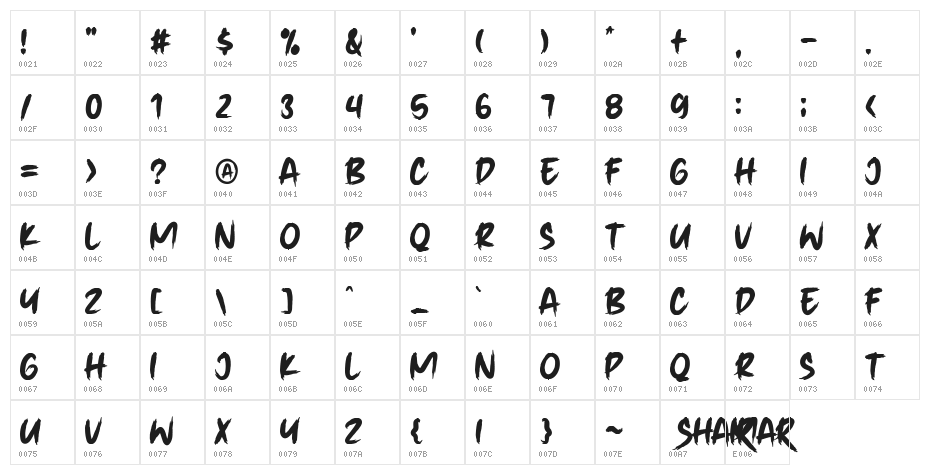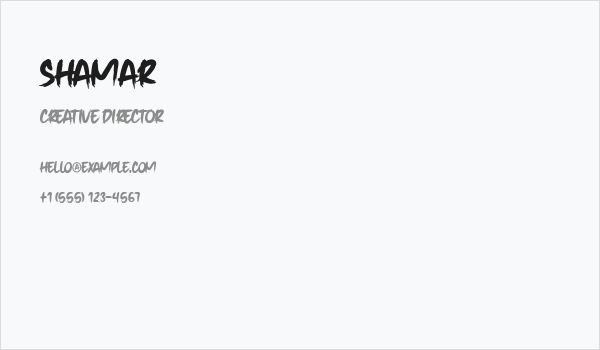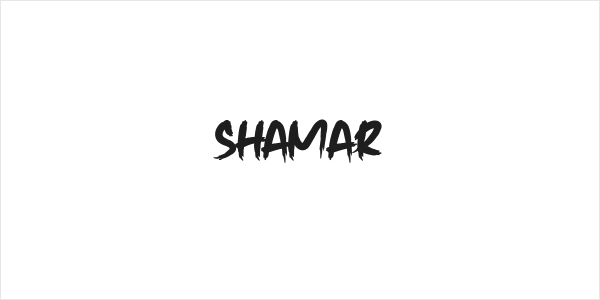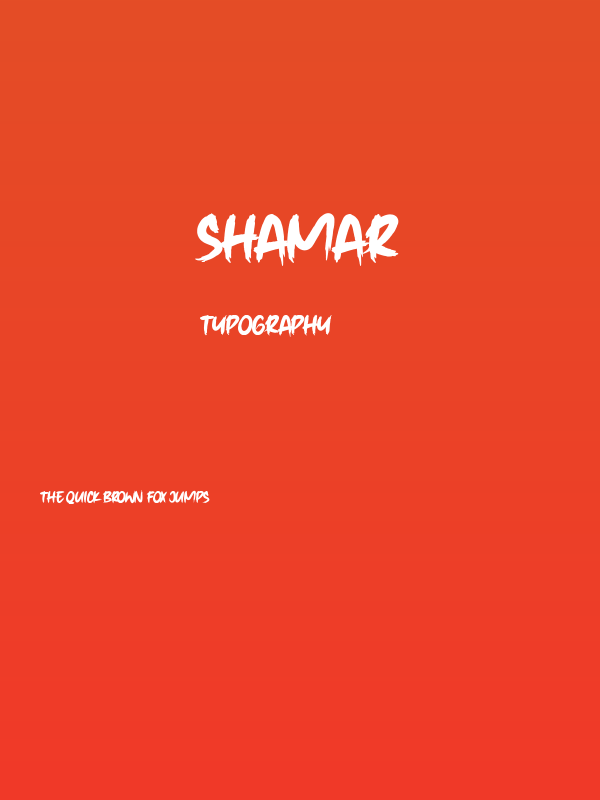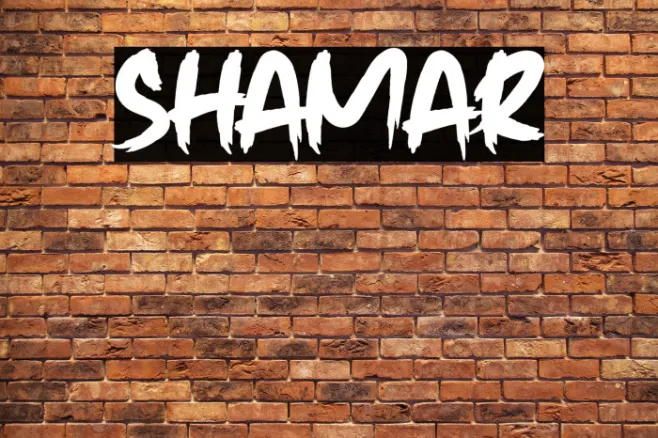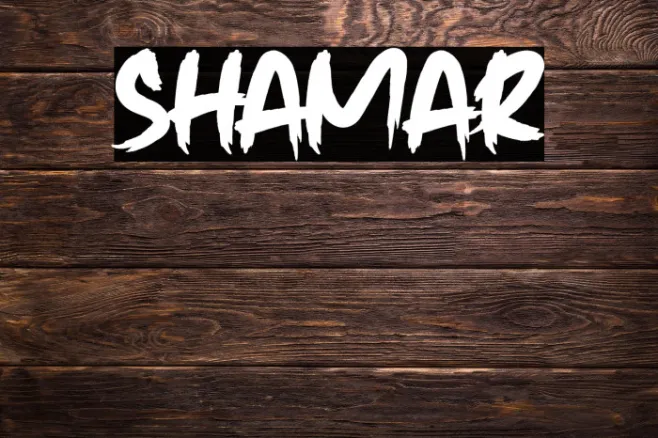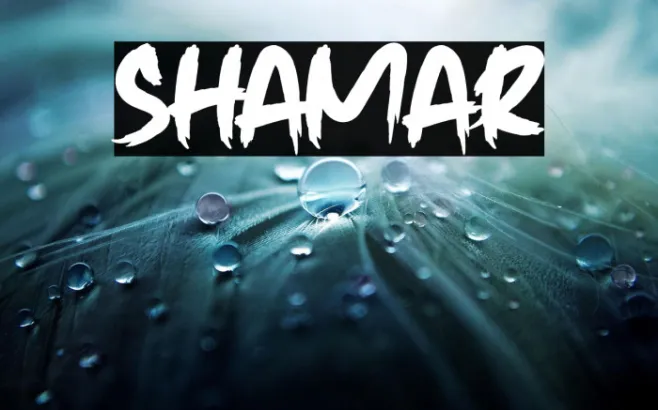
Shamar Font
Shamar Description
This font features a bold and expressive brush style, characterized by its dynamic and energetic strokes. The uppercase letters are robust and slightly irregular, giving a hand-painted appearance. The lowercase letters maintain the same lively style, with smooth curves and a natural flow. Numbers and special characters are consistent with the overall aesthetic, adding a playful yet sophisticated touch. The font's design is perfect for projects that require a personal and artistic flair, making it suitable for creative branding and eye-catching headlines.
SHAMAR UPPERCASE
SHAMAR LOWERCASE
SHAMAR OTHER CHARS
| Style | Brush |
| Proposed Projects | Ideal for creative branding, artistic posters, and eye-catching headlines. |